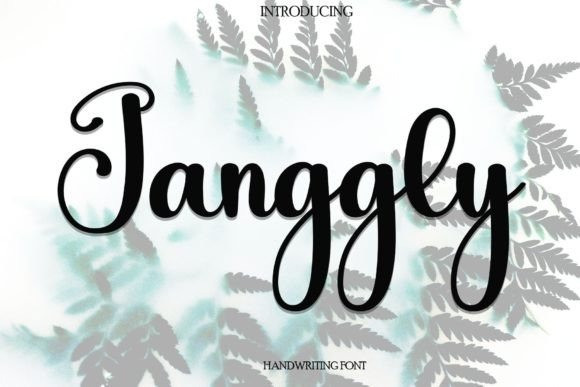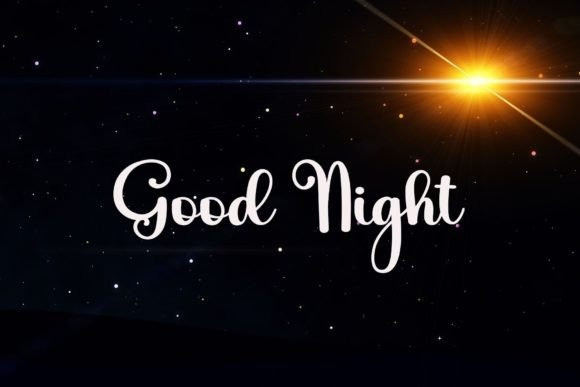
Janggly Script Font
Janggly Script Font, is a fun and friendly handwritten font. Use it to turn any design idea into a true standout. Get inspired by its unique charm and create lovely designs!